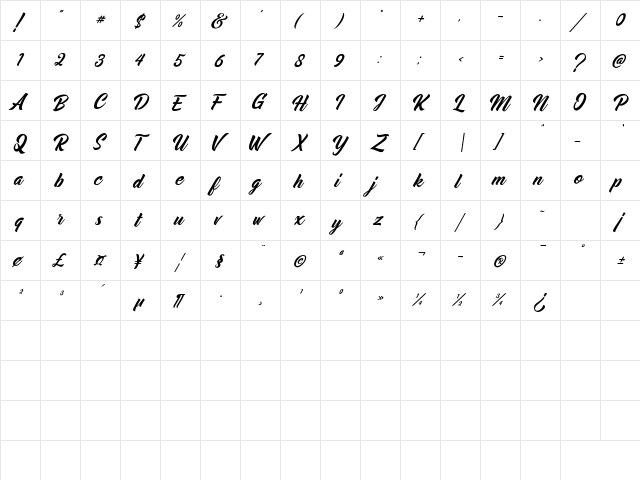
Midtown Regular
| Designer | Lettersiro 2017 |
Design Context for Midtown Typeface
Midtown is a composed and adaptable typeface that performs quietly and consistently across a wide range of design contexts.